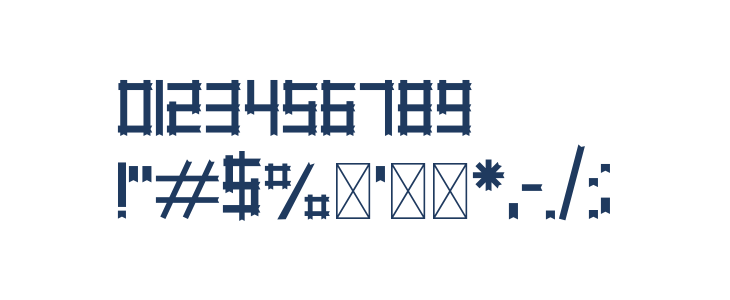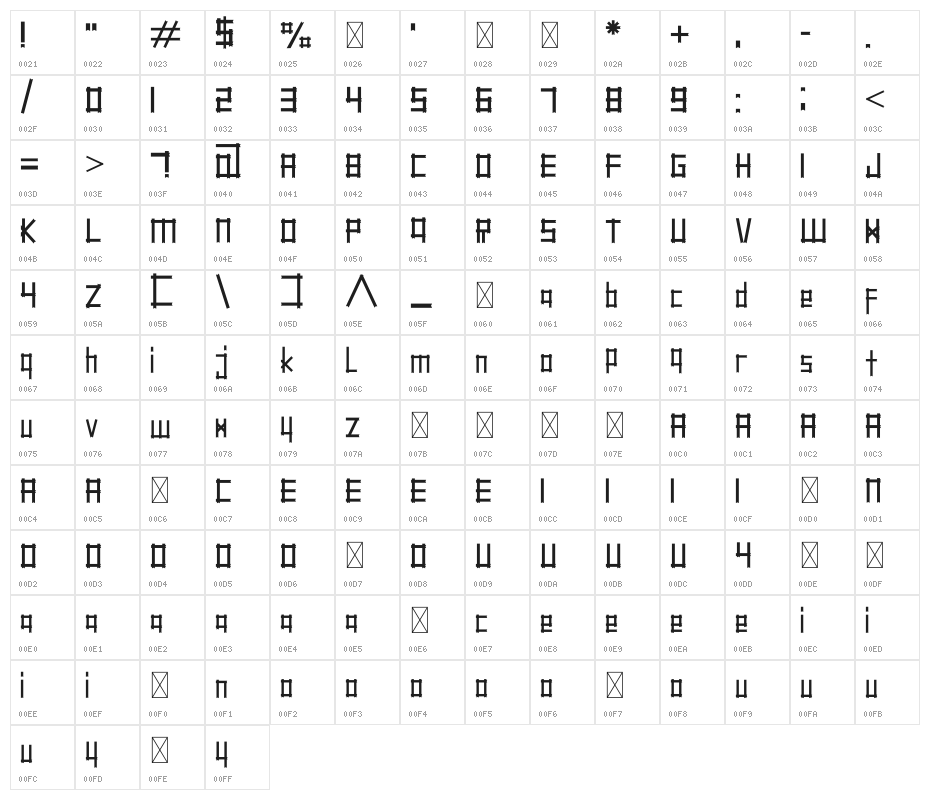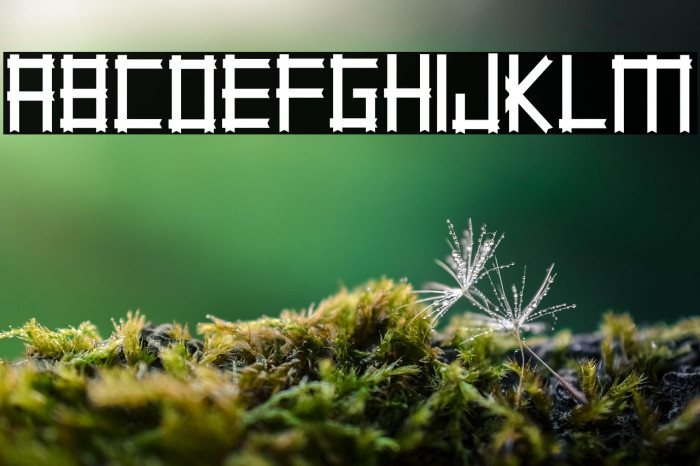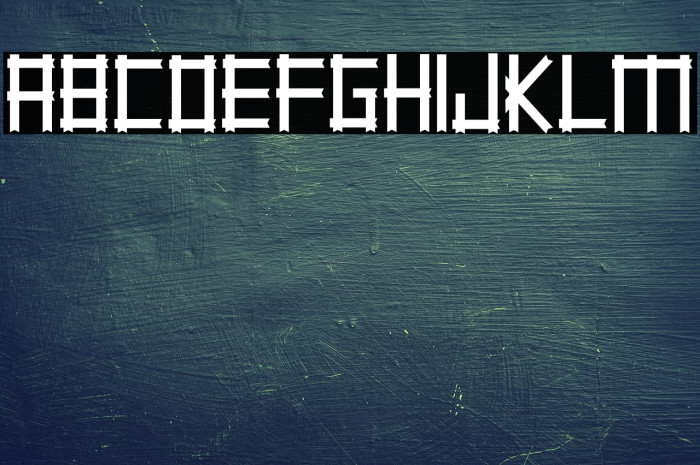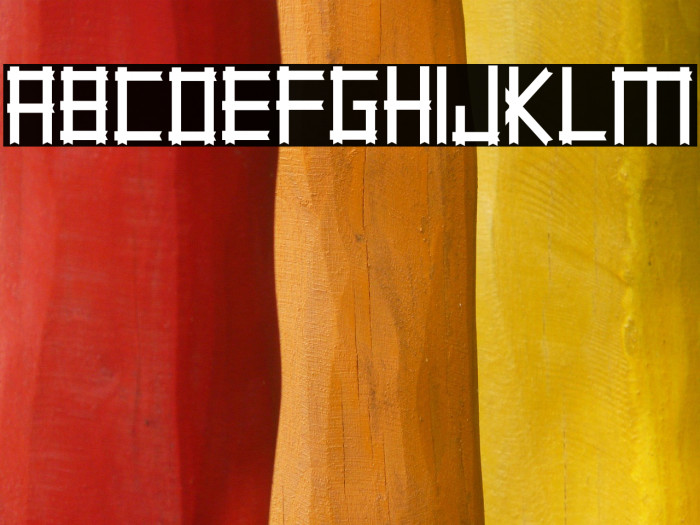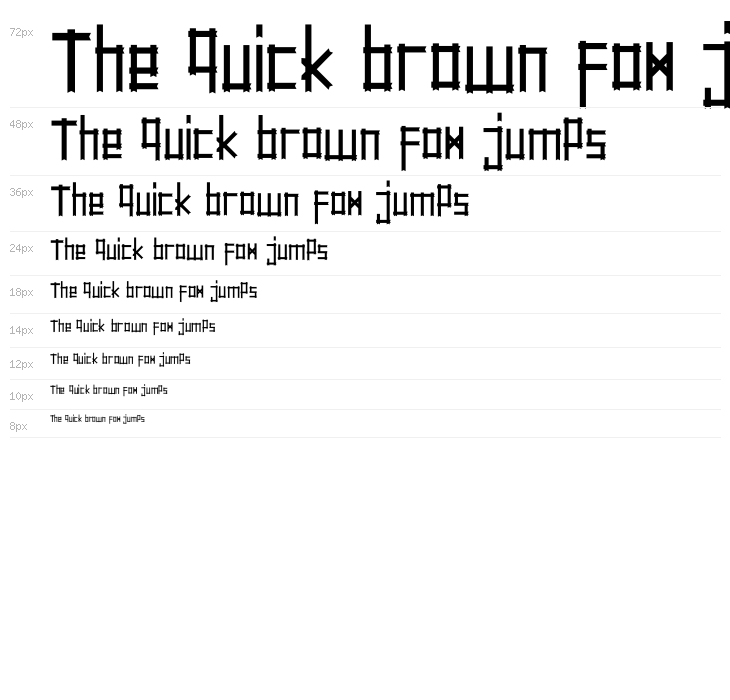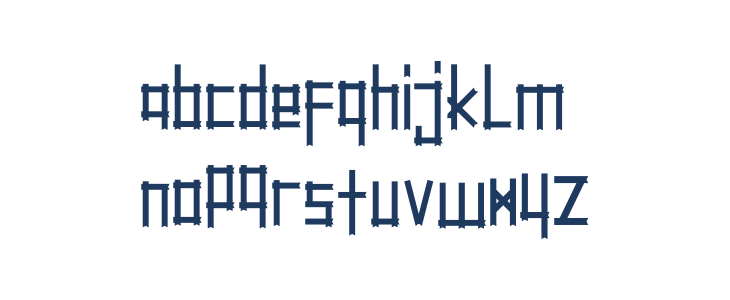
Serpadu Font
Serpadu Description
This font features a bold, geometric design with a distinct industrial and mechanical feel. Each character is constructed with thick, straight lines and sharp angles, giving it a structured and robust appearance. The uppercase and lowercase letters maintain a consistent height, contributing to a uniform and cohesive look. The numerals and special characters follow the same design principles, ensuring visual harmony across all elements. The font's unique style makes it stand out, with its strong presence and modern aesthetic.